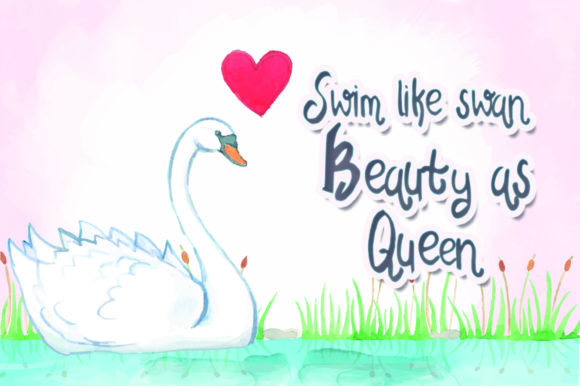
Swan Tales Font
About Swan Tales Font
The Swan Tales is a rough version of a cute and lovely font . It’s suitable for making quotes, love letters, shirts, posters, and much more!